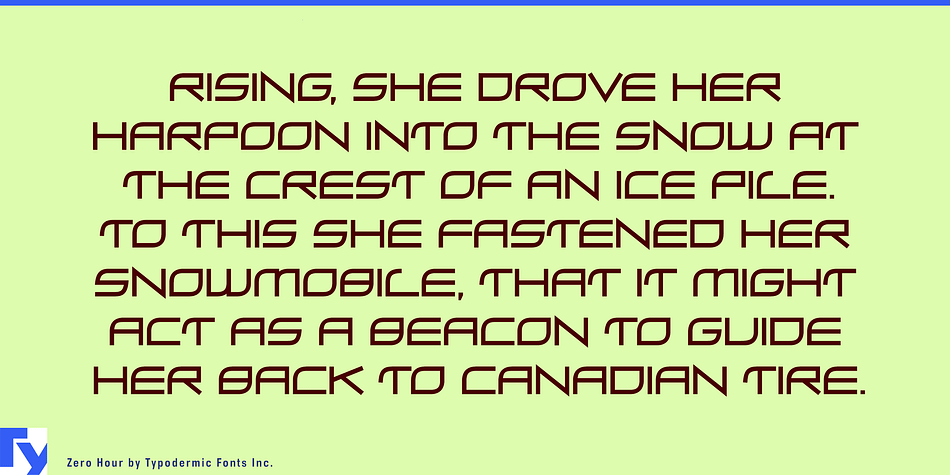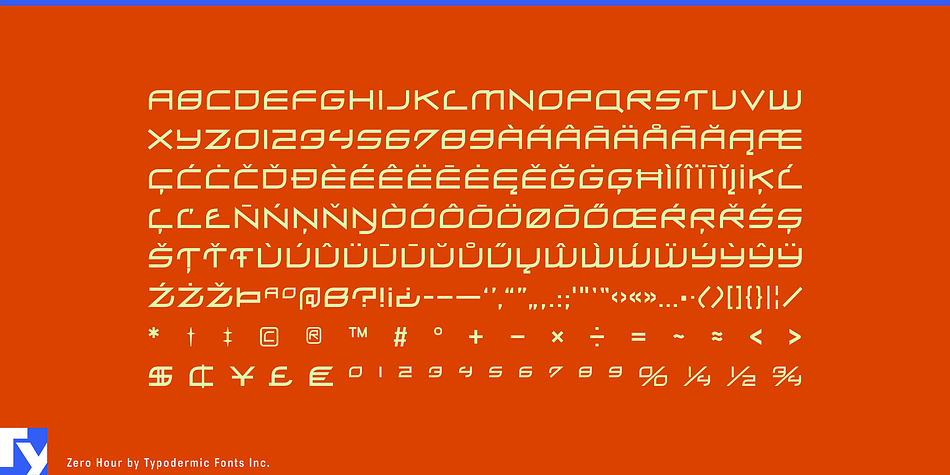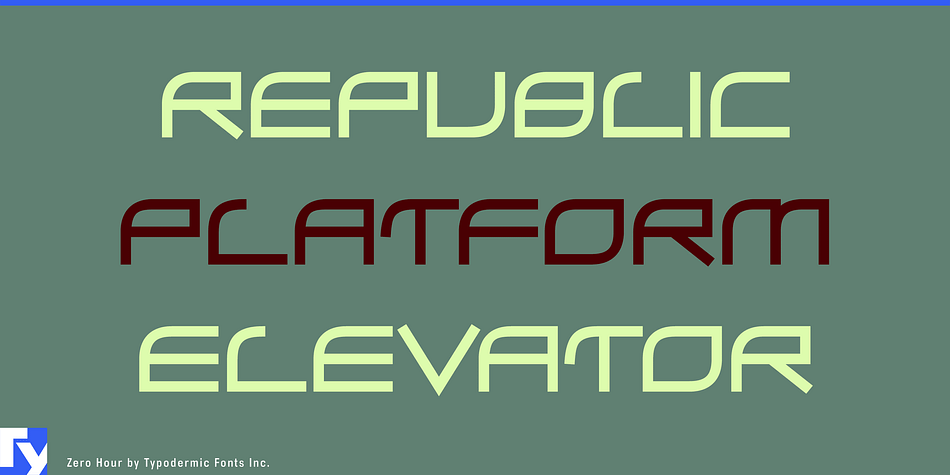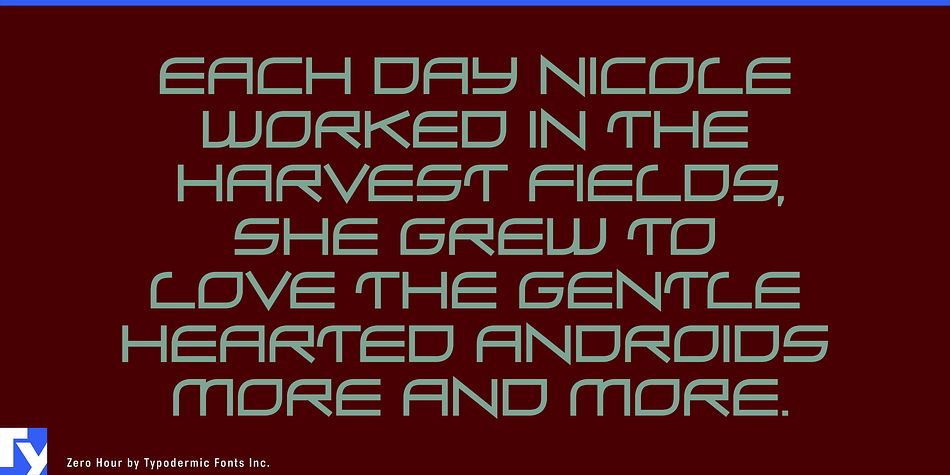
Zero Hour is a display sans font published by Typodermic Fonts Inc.
Zero Hour is an outstretched digital display typeface. Its harsh robotic letterforms and scientific style will add a cool technical optimism to your message. Most Latin-based European writing systems are supported, including the following languages. Afaan Oromo, Afar, Afrikaans, Albanian, Alsatian, Aromanian, Aymara, Bashkir (Latin), Basque, Belarusian (Latin), Bemba, Bikol, Bosnian, Breton, Cape Verdean, Creole, Catalan, Cebuano, Chamorro, Chavacano, Chichewa, Crimean Tatar (Latin), Croatian, Czech, Danish, Dawan, Dholuo, Dutch, English, Estonian, Faroese, Fijian, Filipino, Finnish, French, Frisian, Friulian, Gagauz (Latin), Galician, Ganda, Genoese, German, Greenlandic, Guadeloupean Creole, Haitian Creole, Hawaiian, Hiligaynon, Hungarian, Icelandic, Ilocano, Indonesian, Irish, Italian, Jamaican, Kaqchikel, Karakalpak (Latin), Kashubian, Kikongo, Kinyarwanda, Kirundi, Kurdish (Latin), Latvian, Lithuanian, Lombard, Low Saxon, Luxembourgish, Maasai, Makhuwa, Malay, Maltese, Māori, Moldovan, Montenegrin, Ndebele, Neapolitan, Norwegian, Novial, Occitan, Ossetian (Latin), Papiamento, Piedmontese, Polish, Portuguese, Quechua, Rarotongan, Romanian, Romansh, Sami, Sango, Saramaccan, Sardinian, Scottish Gaelic, Serbian (Latin), Shona, Sicilian, Silesian, Slovak, Slovenian, Somali, Sorbian, Sotho, Spanish, Swahili, Swazi, Swedish, Tagalog, Tahitian, Tetum, Tongan, Tshiluba, Tsonga, Tswana, Tumbuka, Turkish, Turkmen (Latin), Tuvaluan, Uzbek (Latin), Venetian, Vepsian, Võro, Walloon, Waray-Waray, Wayuu, Welsh, Wolof, Xhosa, Yapese, Zapotec Zulu and Zuni.